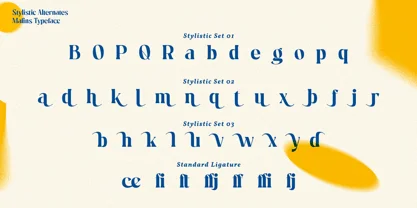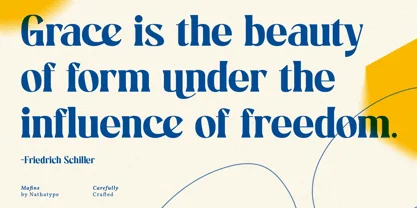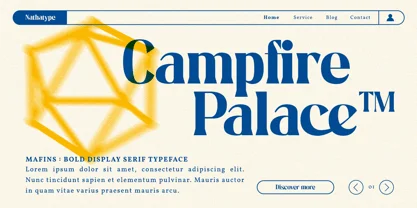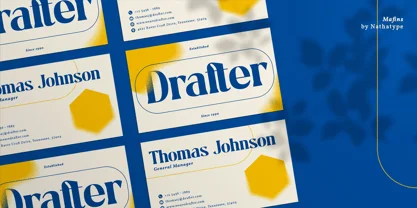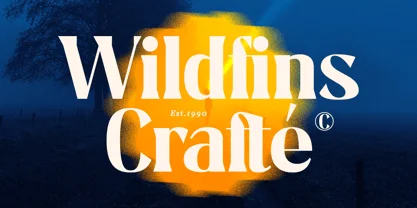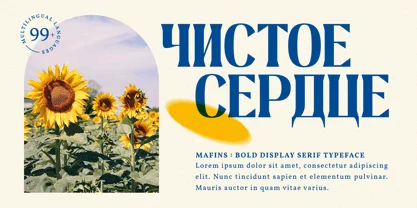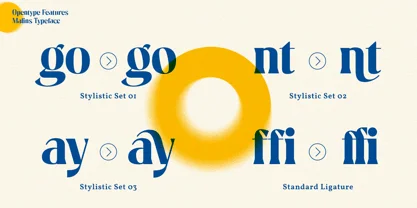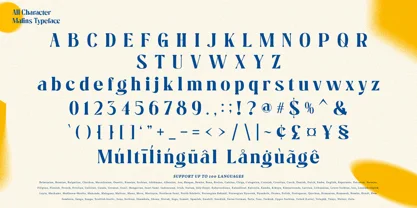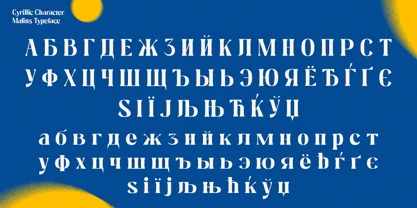
Mafins Font
The Mafins Font is perfect for cozy bakery branding, delicious food packaging, warm cafe signage, artisan product labels, homestyle restaurant menus, sweet confectionery designs, comfort food advertising, family dining communications, wholesome brand identities, and heartwarming culinary presentations.
What makes the Mafins Font so exciting is its delightful combination of warm comfort with friendly approachability that creates an irresistibly inviting visual experience perfect for food brands seeking to communicate homemade quality and genuine warmth. This charming typeface features soft letterforms, comfortable character spacing, and welcoming design elements that perfectly capture the essence of freshly baked goodness and authentic culinary comfort. The font's warm personality and friendly appeal make it an exceptional choice for food businesses seeking to communicate comfort, quality, and genuine hospitality with memorable visual charm that makes mouths water.
The Mafins Font family includes cozy variations and comfortable alternates, featuring multiple weight options, friendly character styles, and warm design elements. Each variation maintains the signature comfort appeal while offering different levels of visual warmth and culinary charm, giving designers extensive creative possibilities for crafting inviting communications and delicious brand personalities that capture the essence of homemade goodness.
This exceptional Mafins Font represents the perfect culinary typography solution for food businesses who want to infuse their projects with authentic comfort and homestyle appeal that connects with customers' hearts and appetites. Whether you're developing bakery brand identities, creating appetizing food packaging, or designing warm hospitality communications, this versatile comfort font delivers delicious results that resonate with audiences seeking genuine culinary comfort and homemade quality.
The warm culinary characteristics of Mafins Font showcase masterful comfort typography design, with each letter carefully crafted to evoke feelings of home cooking and culinary satisfaction while maintaining excellent readability and visual appeal. The font's comprehensive character set includes uppercase and lowercase letters, numerals, friendly punctuation, and culinary symbols, ensuring complete functionality for diverse food projects and international culinary applications.
Perfectly suited for both digital and print culinary applications, this delightful font maintains its comfortable character and warm appeal across various sizes and formats. From large-scale bakery signage to detailed food packaging designs, Mafins Font adapts beautifully to any culinary design challenge while preserving its distinctive comfort personality and homestyle charm.